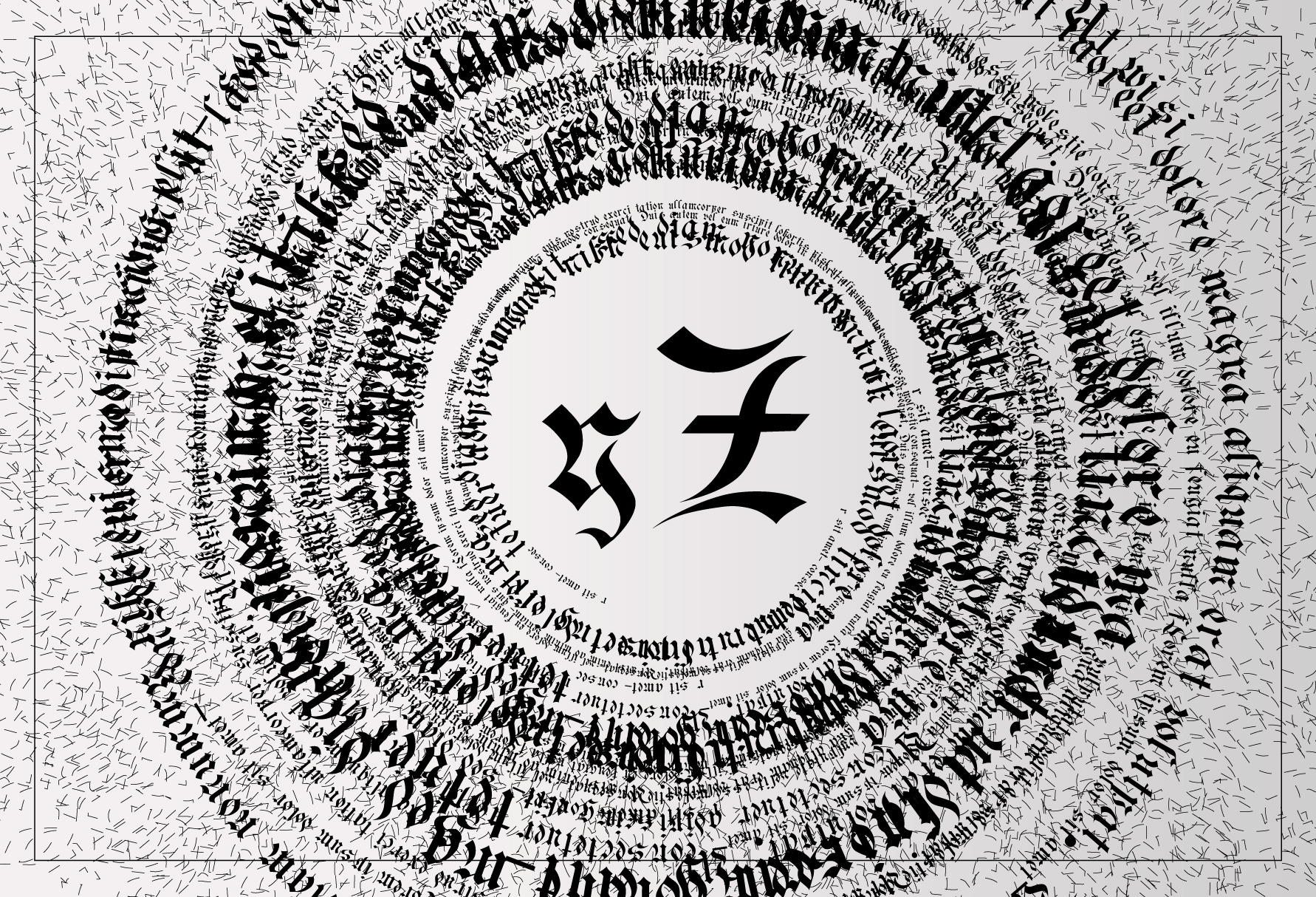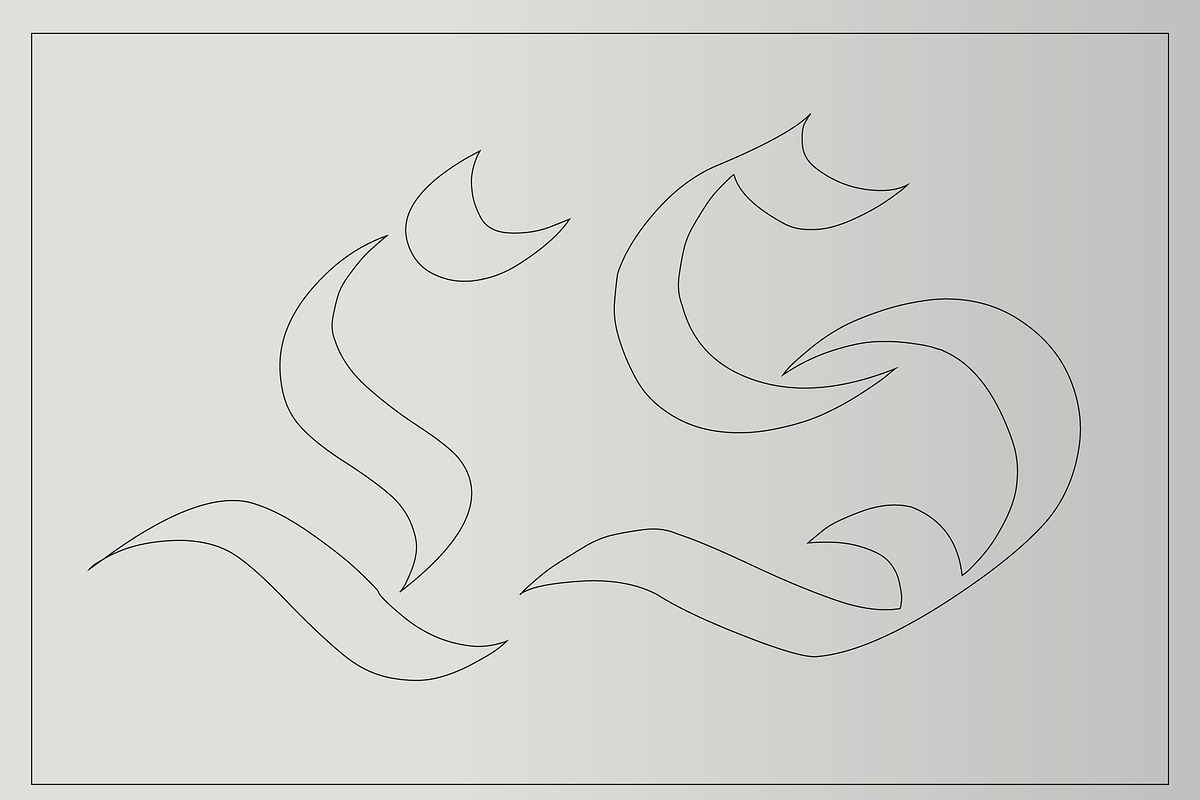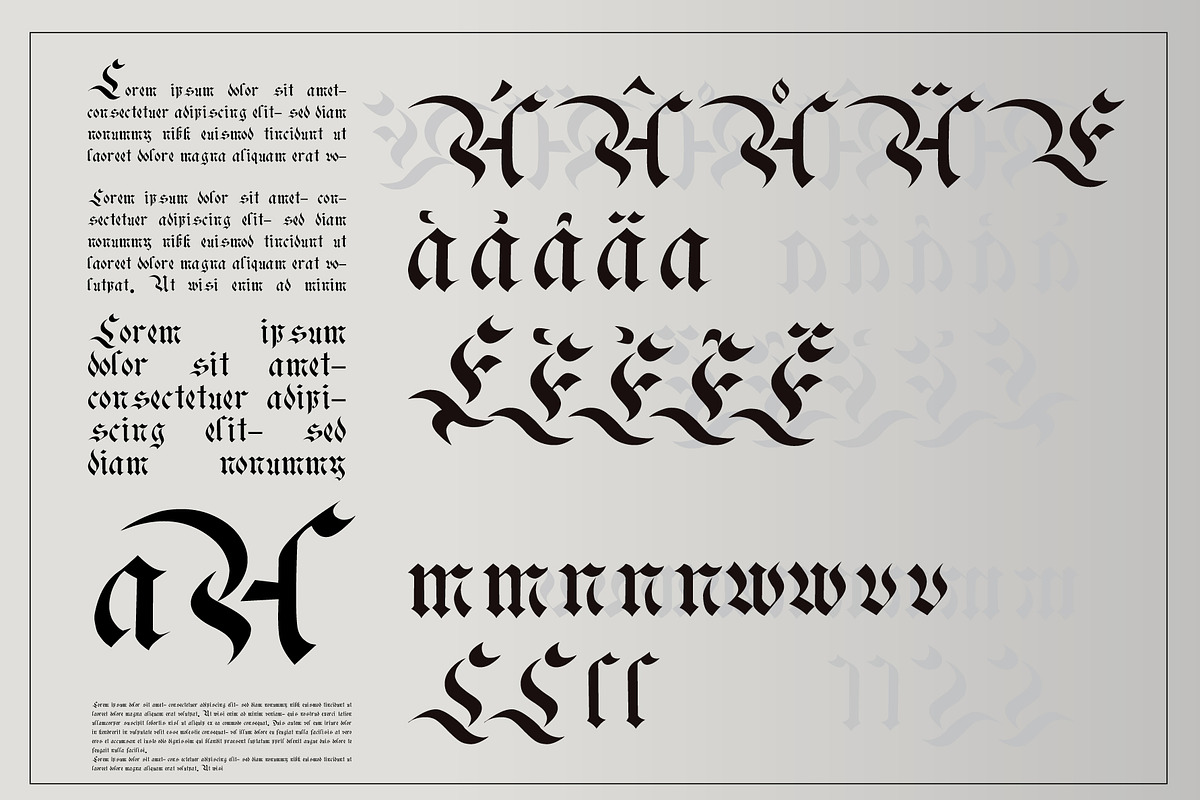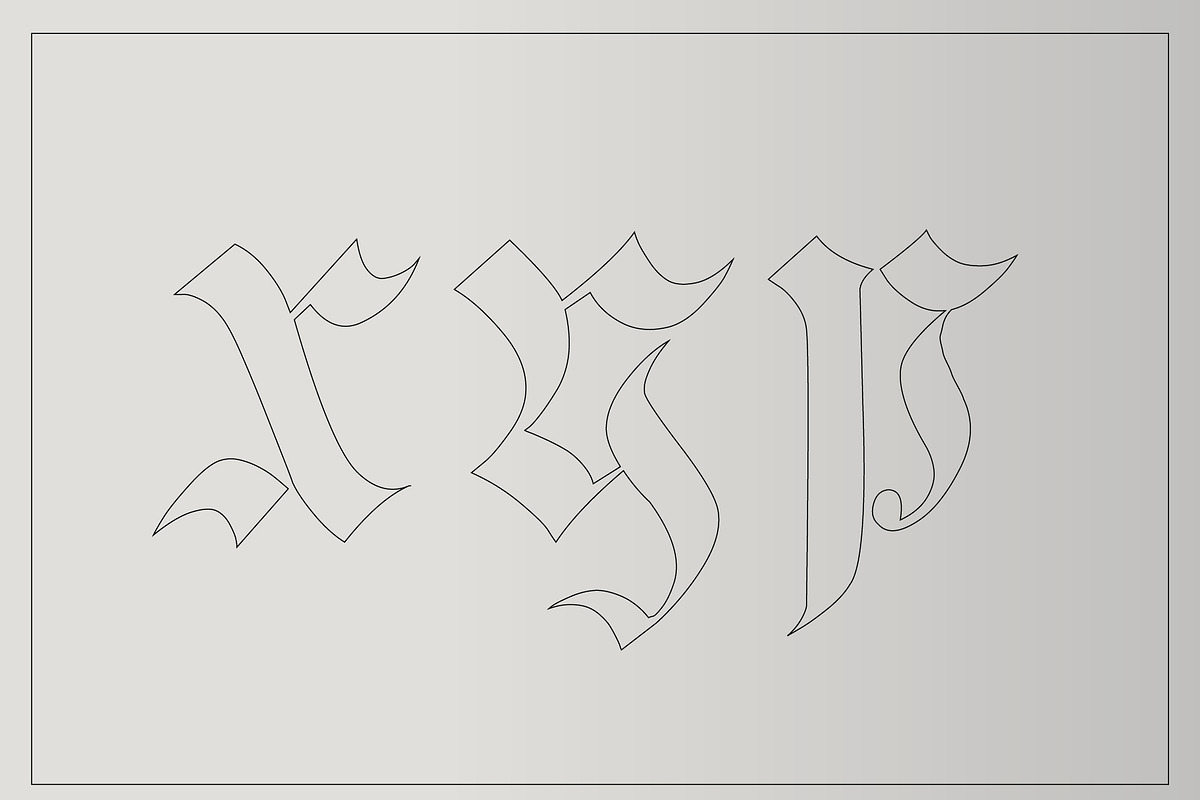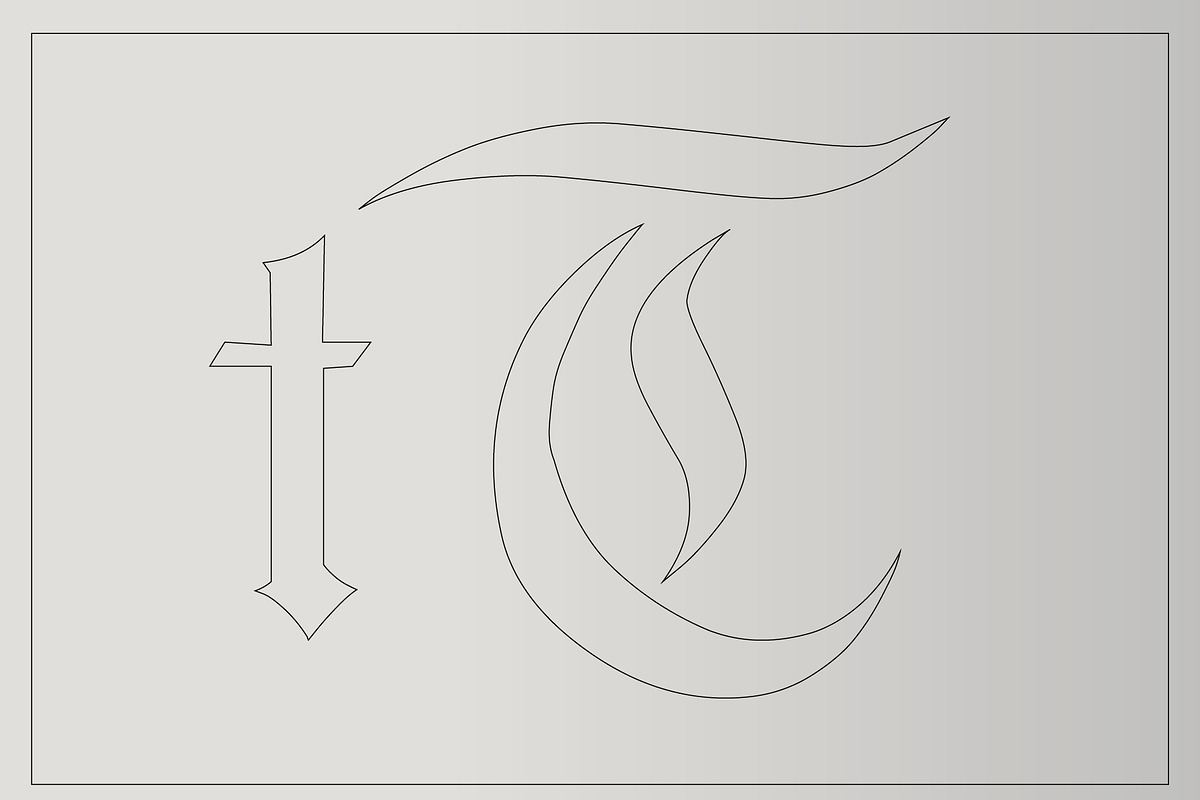
Fraktur Numb Font
Fraktur Numb Font 170 character + Glyphs
Blackletter (sometimes black letter or black-letter), also known as Gothic script, Gothic minuscule or Gothic type, was a script used throughout Western Europe from approximately 1150 until the 17th century.[1] It continued to be commonly used for Danish, Norwegian, and Swedish until the 1870s,[2] Finnish until the turn of the 20th century,[3] Latvian until the 1930s,[4] and for the German language until the 1940s, when Hitler officially discontinued it in 1941.[5] Fraktur is a notable script of this type, and sometimes the entire group of blackletter faces is referred to as Fraktur. Blackletter is sometimes referred to as Old English, but it is not to be confused with the Old English language, which predates blackletter by many centuries and was written in the insular script or in Futhorc. Along with Italic type and Roman type, blackletter served as one of the major typefaces in the history of Western typography